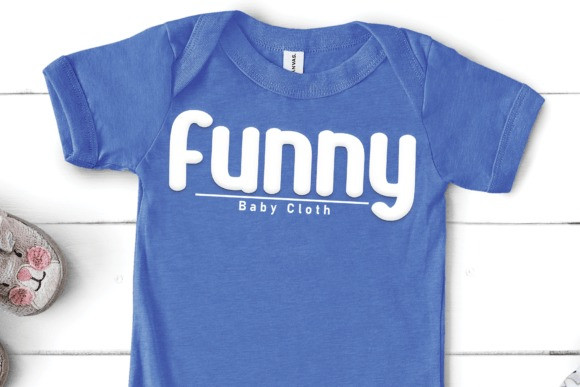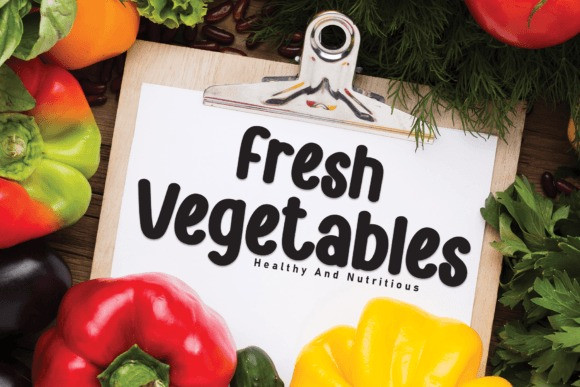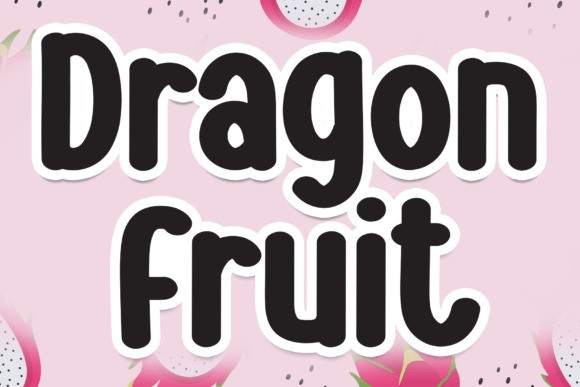
Dragon Fruit Font
Dragon Fruit Font is a sweet and friendly display font. Cute and fun, this font is ideal for writing wedding invitations, cards, or any other design that might need a fun touch!